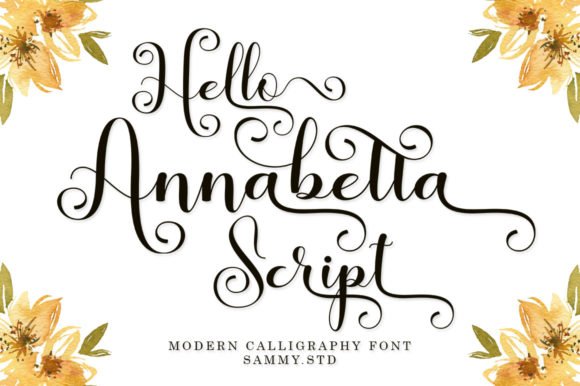
Unleash Your Creativity with the Dazzling Hello Annabetta Script Font
There’s nothing quite like the thrill of discovering a new font that sparks inspiration and takes your designs to the next level. For many creatives, that moment of magic happens when they stumble upon a font that perfectly captures the essence of their vision. For you, that moment might be just around the corner with the enchanting Hello Annabetta Script Font.
This beautifully crafted script font is designed to elevate your creations and make them truly unforgettable. With its intricate details and PUA encoding, you’ll have access to a world of possibilities, from elegant invitations to whimsical graphics. Whether you’re a seasoned designer or just starting out, Hello Annabetta Script Font is sure to become a trusted companion in your creative journey.
- Unique Characteristics: Hello Annabetta Script Font features beautiful, flowing script letters with a touch of elegance and sophistication, perfect for creating a romantic or vintage atmosphere in designs.
Hello Annabetta Script Font Review
Hello Annabetta Script Font is a beautiful, elegant font that adds a touch of sophistication to any design project. ✨ The flowing connections and organic feel of the font make it perfect for invitations, logos, and other design elements where a handwritten touch is desired.
Here are some of the key strengths of the font:
- ✨ High-quality font with smooth connections and rounded edges.
- ✨ Excellent for use in digital and print media.
- ✨ Supports a wide range of languages.
- ⚠️ May not be suitable for use in small font sizes due to its script nature.
- ⚠️ May not be as versatile as other fonts for use in body text.
- ⚠️ Some users may find the font too ornate or over-the-top.
Overall, I’m impressed with Hello Annabetta Script Font, but it’s essential to understand its limitations and use it in the right context. With a little creativity and restraint, this font can add a touch of elegance to any design project.
The Hello Annabetta Script Font is ideal for creating elegant and sophisticated designs, such as:
Brand logos and marketing materials
Editorial and publishing projects
Remember to pair the Hello Annabetta Script Font with a clear and readable font to ensure maximum legibility.